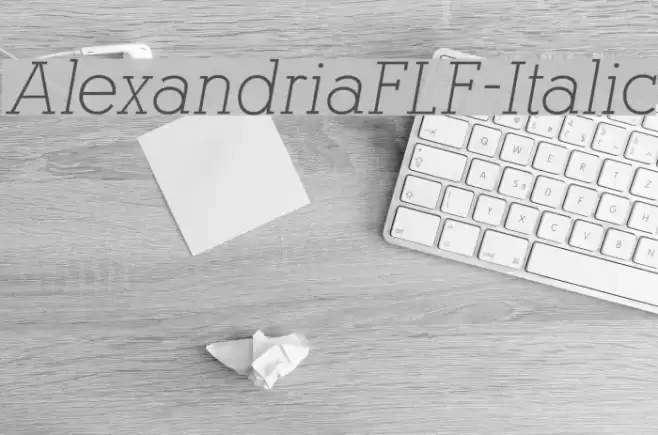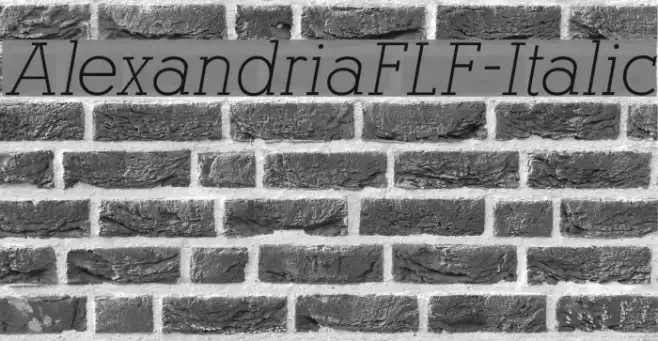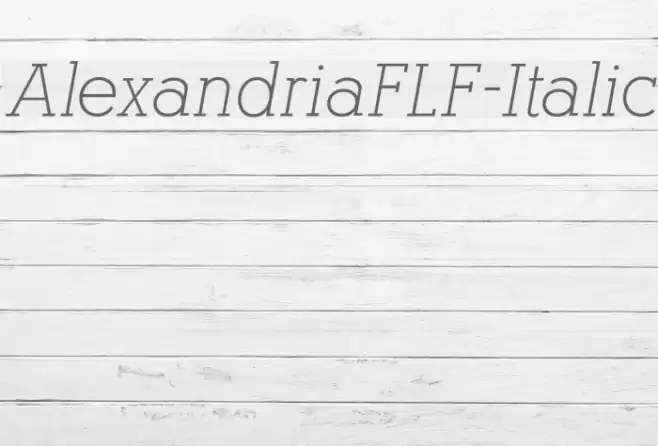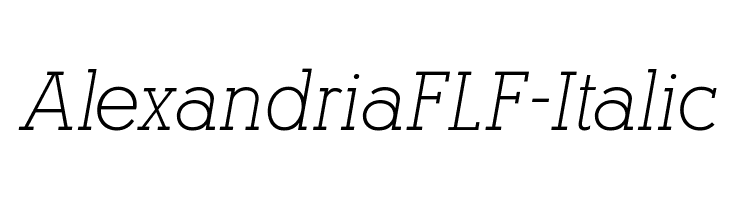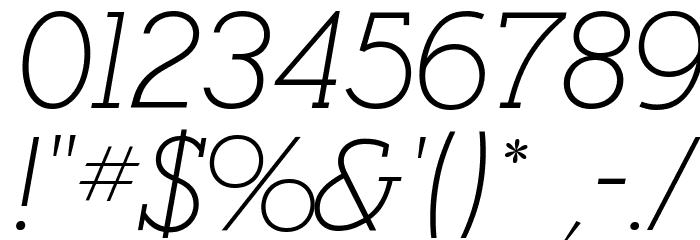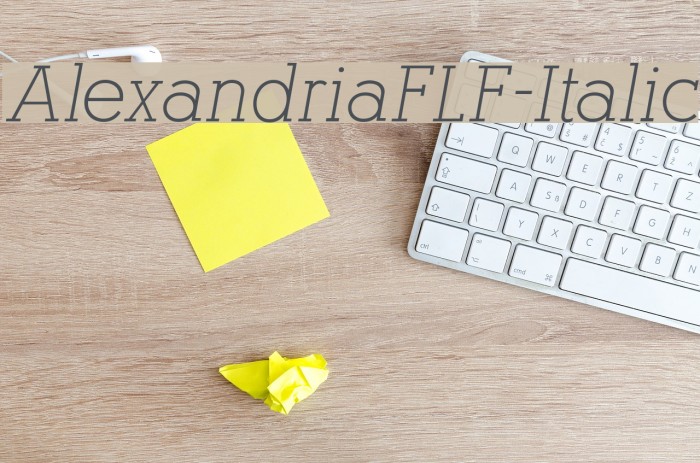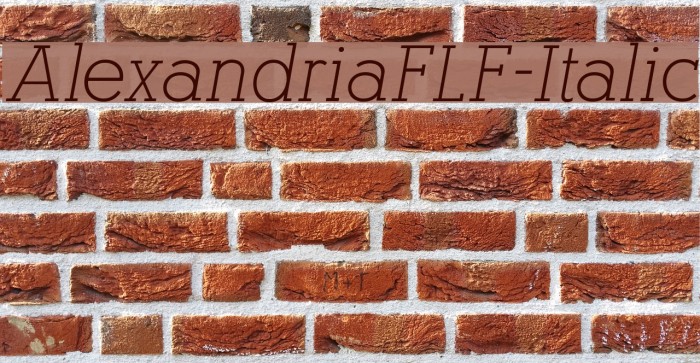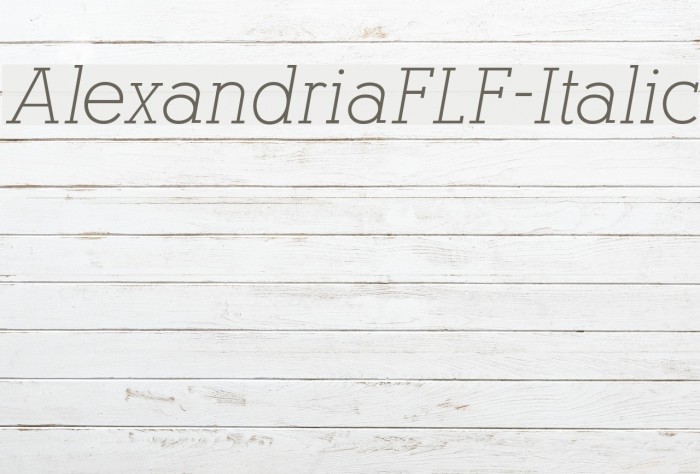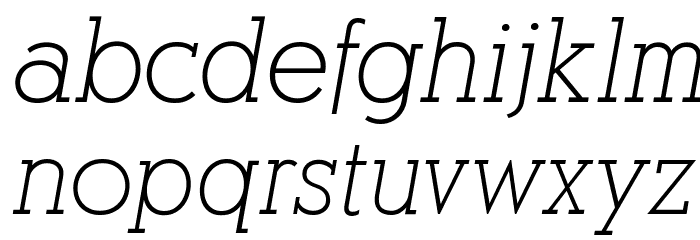
AlexandriaFLF-Italic Font
AlexandriaFLF-Italic Description
This font showcases a classic italic style with a refined and elegant appearance. The letters are slightly slanted, giving a sense of motion and sophistication. The uppercase letters are tall and slender, while the lowercase letters maintain a consistent flow with smooth curves. Numbers are clear and well-proportioned, making them easy to read. The special characters are distinct and harmonize well with the overall design. This font's clean lines and subtle elegance make it suitable for a variety of applications.
A refined italic font with elegant, slanted characters and smooth curves from Uncategorized fonts.
- Proposed Projects: Ideal for formal invitations, elegant branding, book covers, and editorial design.
- Overall Style: Classic